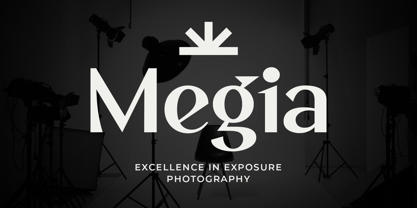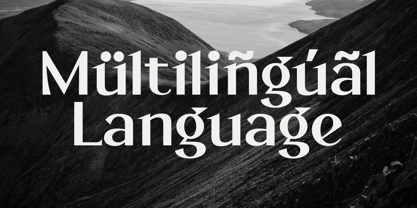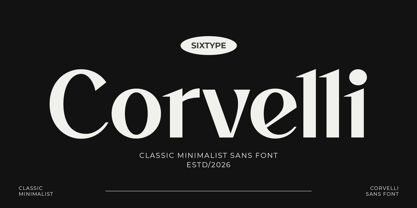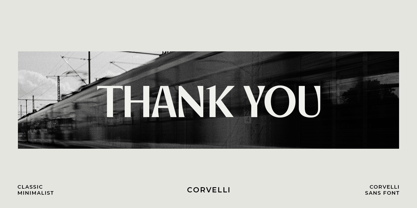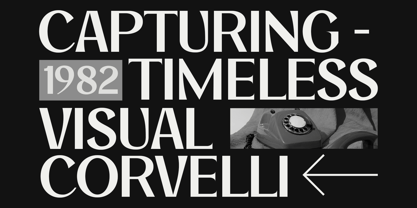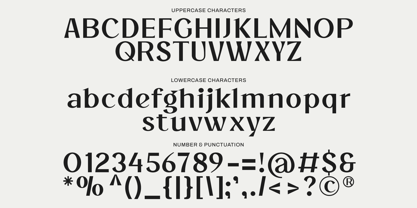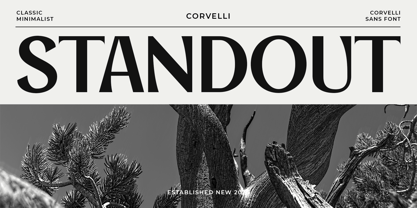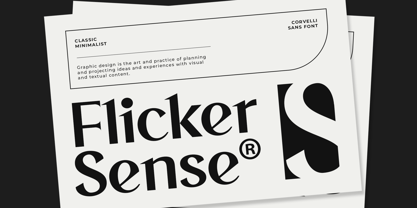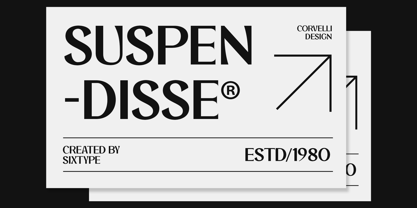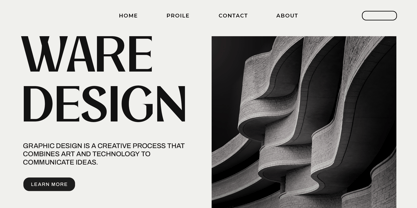
Corvelli
by Sixtype Foundry
Corvelli is a refined minimalist sans serif typeface that seamlessly blends timeless elegance with a subtle contemporary character. Its clean structure is enhanced by distinctive angular cuts and gently sculpted curves, creating a sophisticated rhythm that feels both modern and editorial. The balanced proportions and high-contrast detailing make Corvelli ideal for luxury branding, fashion campaigns, magazine layouts, and high-end visual identities. This font delivers clarity infused with personality, making it perfect for designers seeking a sleek, premium aesthetic that stands out while effectively conveying their message.